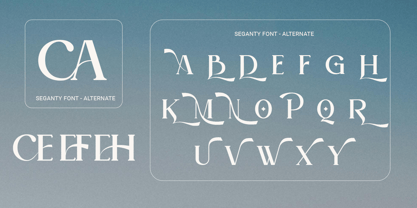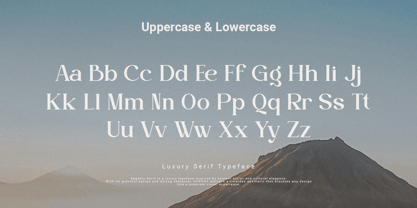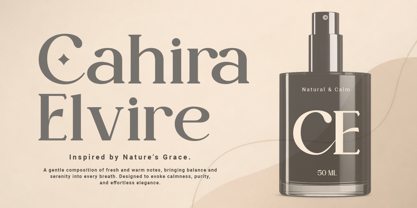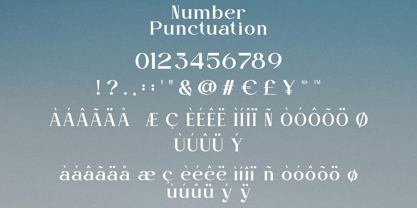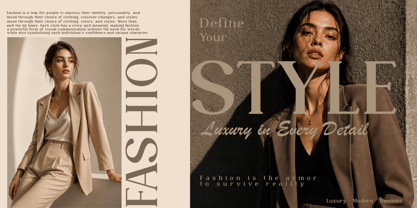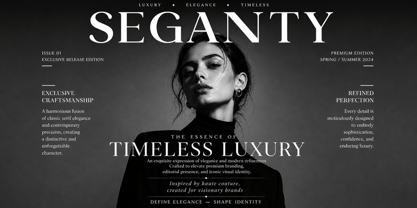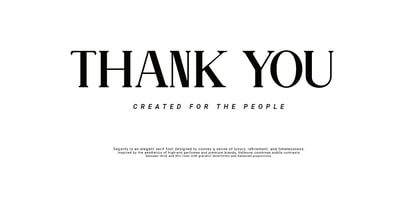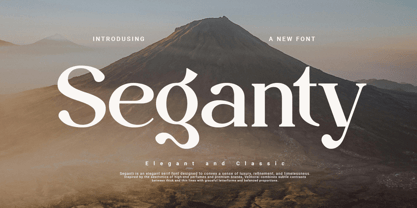
Seganty
Seganty is a refined and elegant typeface, designed to bring a sense of luxury and modern sophistication to your projects. With balanced proportions and carefully designed letterforms, Seganty blends classic serif aesthetics with a contemporary touch, making it highly versatile for both print and digital use.
Each character is designed with attention to detail, offering smooth curves, stylish contrast, and a graceful rhythm that enhances readability while maintaining a premium feel. Seganty is perfect for branding, logos, editorial layouts, wedding invitations, packaging, and high-end design projects.
Whether you desire a timeless look or a modern luxury identity, Seganty delivers a distinctive and striking visual voice with refined elegance.
Elegant serif style with a modern influence
Clean and balanced letterforms
Perfect for luxury branding and editorial design
Suitable for logos, packaging, and invitations
Multilingual support (where applicable)
Seganty is more than just a typeface—it's a statement of style and sophistication.